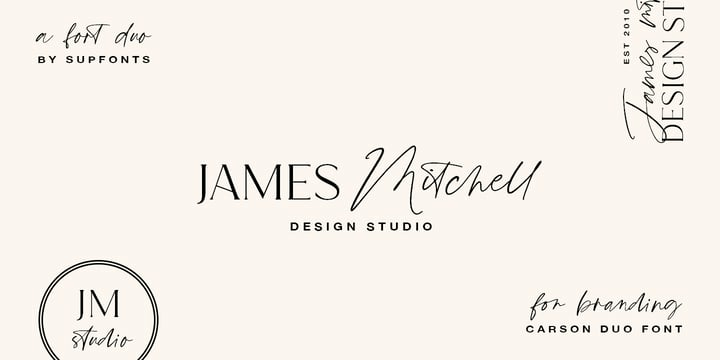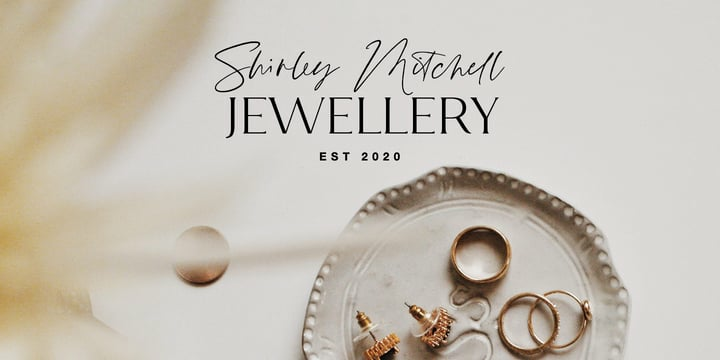
Carson Font Family
Carson Font FamilyCarson Font Duo is a combination of a sophisticated serif typeface and a relaxed handwritten script. It has a contemporary and uncomplicated design that adds an elegant and tidy touch to various projects such as websites, logos, branding, social media quotes, wedding stationery, and more.